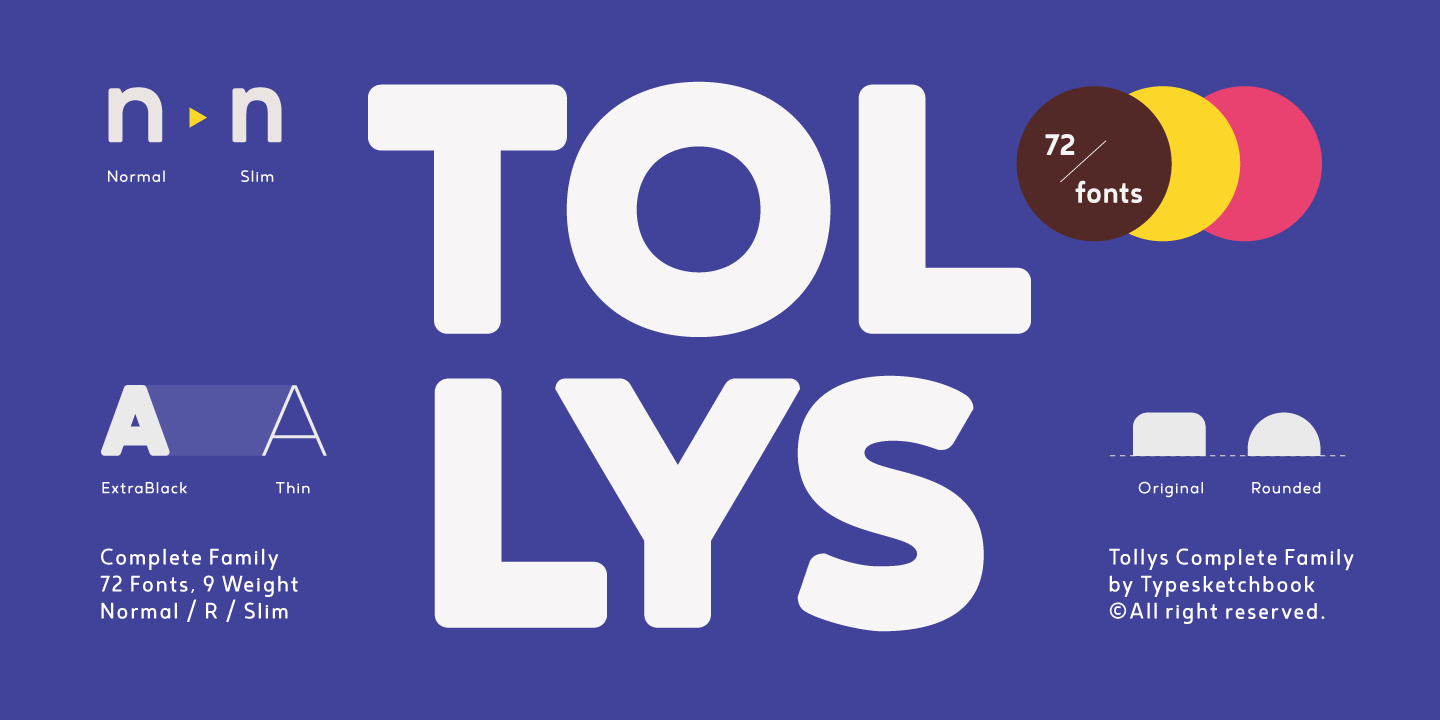
Tollys Font is perfect for children's book illustrations, playful branding, toy packaging, educational materials, candy store signage, kindergarten posters, birthday party invitations, cartoon animation titles, friendly app interfaces, and whimsical marketing campaigns.
What makes Tollys Font so exciting is its delightfully charming character that instantly brings smiles and warmth to any design project. This font captures the essence of childhood wonder and playful creativity, featuring rounded letterforms that appear hand-crafted with care and affection. The friendly, approachable characters create an atmosphere of joy and comfort, making readers feel welcomed and entertained from the first glance.
The Tollys Font family includes Light, Regular, Medium, Bold, and Extra Bold weights, along with playful outline and shadow variations. Each style maintains the font's distinctive cheerful personality while offering flexibility for different design requirements, from subtle text applications to bold, attention-grabbing headlines.
This endearing typeface brings genuine warmth and personality to modern design projects. The Tollys Font Free Download offers designers an invaluable resource for creating engaging, family-friendly communications that resonate with audiences of all ages. Whether you're designing educational content, developing child-focused branding, or creating community event materials, this font delivers authentic charm and approachability.
The carefully crafted letterforms in Tollys Font feature soft curves, gentle strokes, and perfectly balanced proportions that ensure excellent readability while maintaining their playful spirit. Each character has been designed to work harmoniously together, creating smooth text flow that feels natural and inviting. The font's versatility extends beyond children's projects, making it ideal for brands seeking to communicate friendliness, reliability, and positive energy.
Design professionals appreciate how Tollys Font effortlessly conveys trustworthiness and accessibility without sacrificing professionalism. The extensive character set supports multiple languages and includes special punctuation marks, ensuring global compatibility while preserving its distinctive personality. This makes it a valuable asset for international brands and organizations focused on creating inclusive, welcoming communications.